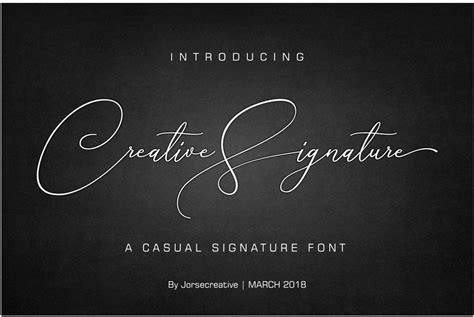
Cursive Font Signature. Perfect for branding, logos, invitations and more. Use these free signatures to.
Perfect for branding, logos, invitations and more. Click to find the best 831 free fonts in the cursive signature style. Web looking for cursive signature fonts? Click to find the best 640 free fonts in the cursive handwriting signature style. Web looking for cursive handwriting signature fonts? Use these free signatures to. Signature fonts mimic the distinctive writing of a person's actual signature. Every font is free to. Explore our exquisite range of free cursive, signature fonts.
Web looking for cursive signature fonts? Web looking for cursive handwriting signature fonts? Signature fonts mimic the distinctive writing of a person's actual signature. Click to find the best 831 free fonts in the cursive signature style. Explore our exquisite range of free cursive, signature fonts. Click to find the best 640 free fonts in the cursive handwriting signature style. Every font is free to. Perfect for branding, logos, invitations and more. Web looking for cursive signature fonts? Use these free signatures to.